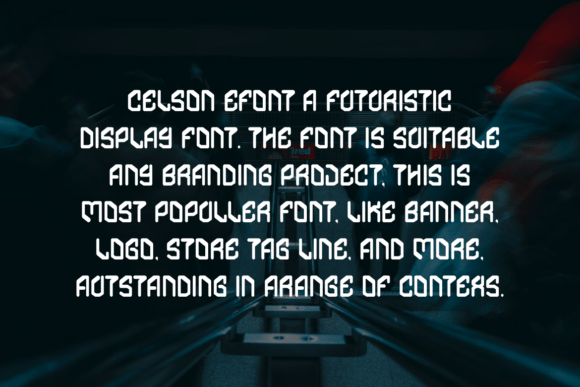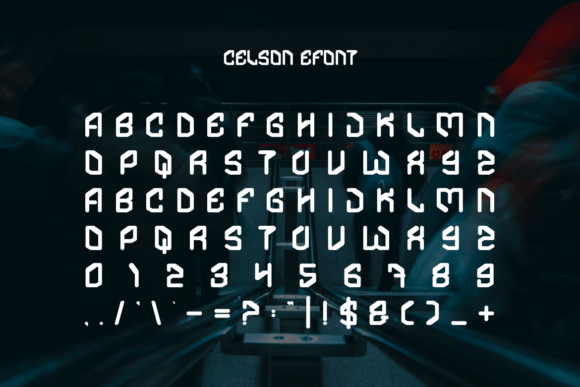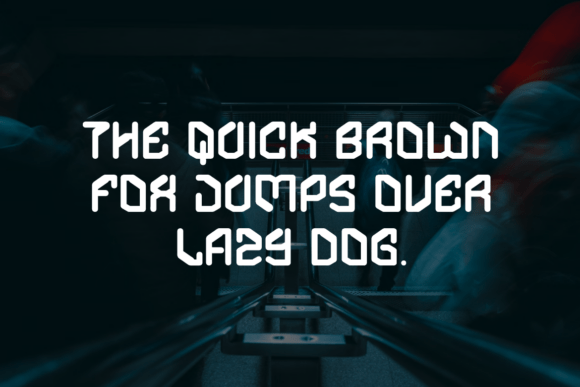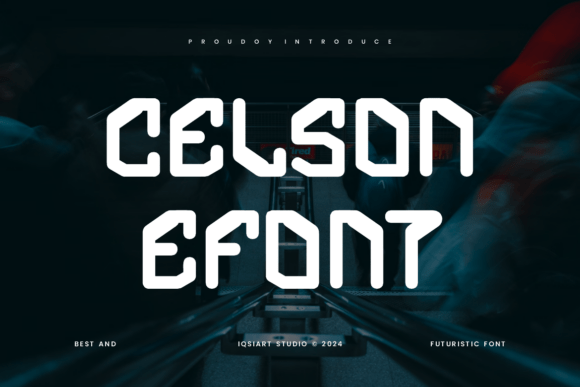
Introduction to Celson Font
Celson is a futuristic display font with a cutting-edge geometric style and modular sci-fi feel.
With squared forms, rounded terminals, and bold angles, it’s perfect for tech branding, digital interfaces, gaming titles, and cyberpunk aesthetics Celson commands attention and brings a sleek, modern edge to every design it touches.